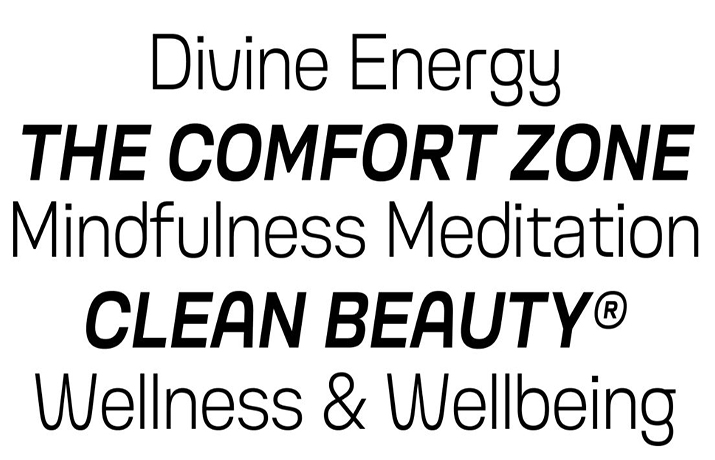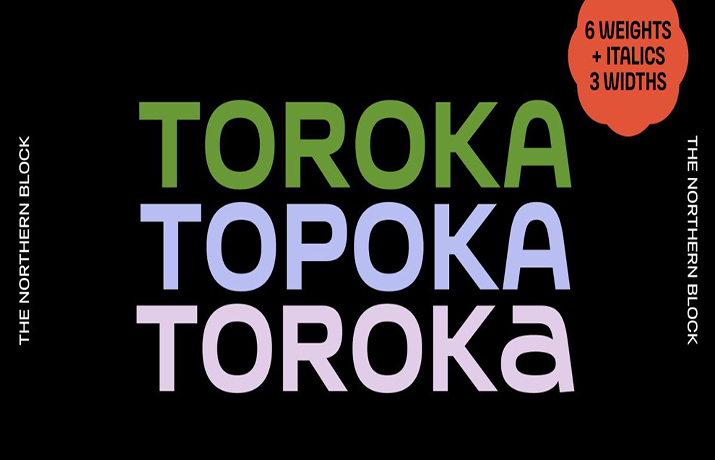
Toroka Font is a geometric sans-serif font family that offers an extensive selection of styles, making it a versatile choice for a wide range of design projects.
This typeface was designed by Mariya Pigoulevskaya and published by The Northern Block. Toroka contains 36 styles and family package options.
Despite its geometric construction, Toroka has a warmth and personality that sets it apart from other sans-serif fonts. It’s rounded corners and subtle curves give it a human touch, while it’s consistent spacing and balanced proportions make it highly legible at any size.
Toroka is optimized for use on screens and in digital media, making it an excellent choice for web design and other digital applications.
It is a well-designed and highly functional typeface that can help communicate professionalism, innovation, and sophistication.
Whether you’re creating a website, social media posters, flyers, display titles, banners, headers, brochures, or a marketing campaign, this Font can help elevate your brand and make a lasting impression on your audience.
Overall, Toroka is a versatile and modern font family that offers a wide range of styles and options for designers.
Its extensive character set includes support for multiple languages and special characters, making it suitable for use in international projects.